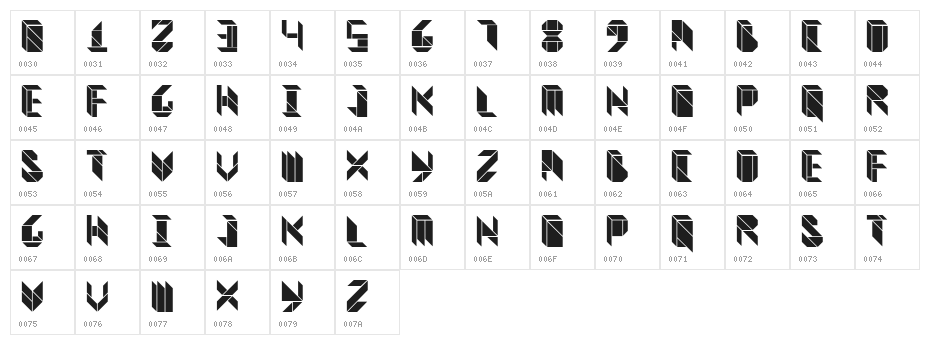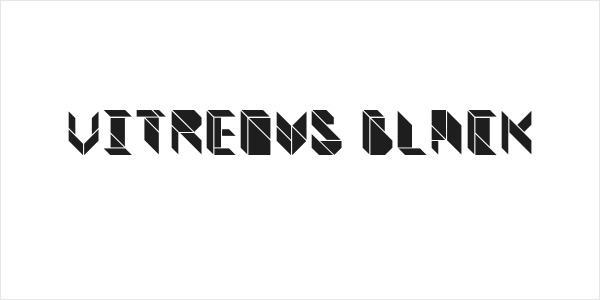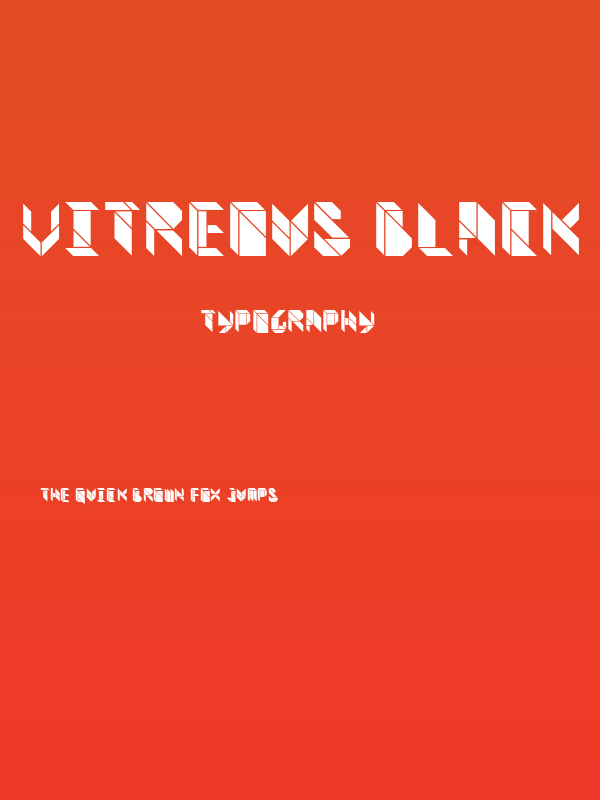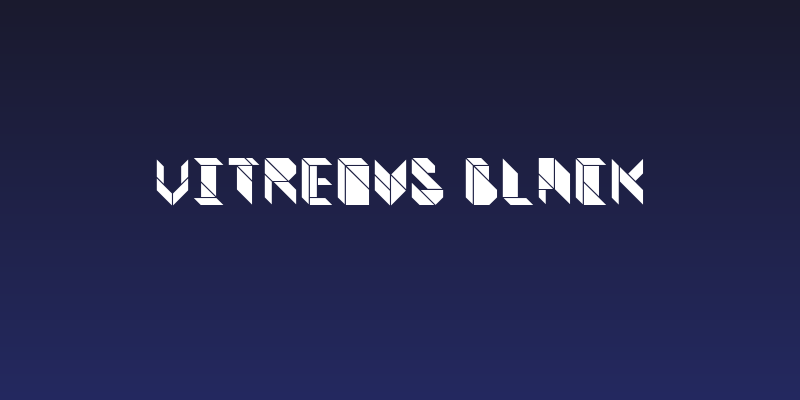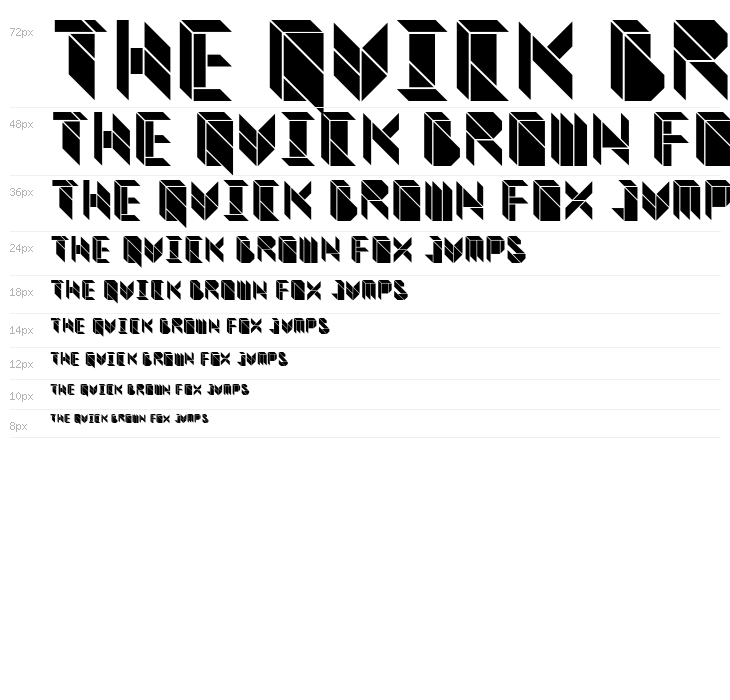
Vitreous Black Font
Vitreous Black Description
This font features a bold, geometric design with a futuristic and angular appearance. Each character is constructed from sharp, straight lines and angles, creating a sense of precision and modernity. The uppercase and lowercase letters maintain a consistent style, with a strong emphasis on vertical and diagonal lines. The numerals follow the same geometric pattern, ensuring uniformity across the character set. The absence of curves gives the font a distinctly digital and technical feel, making it stand out in any design project.
| Proposed Projects | Ideal for technology branding, sci-fi themed projects, video game titles, and modern posters. |